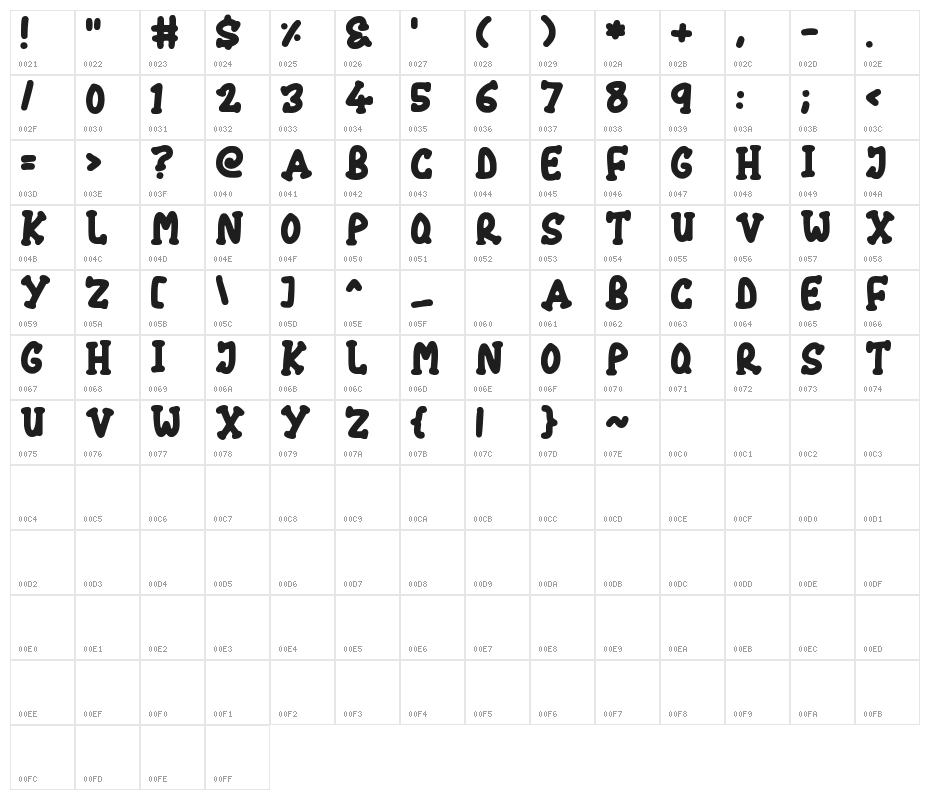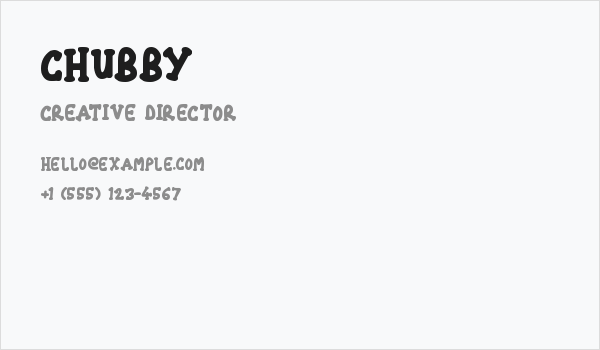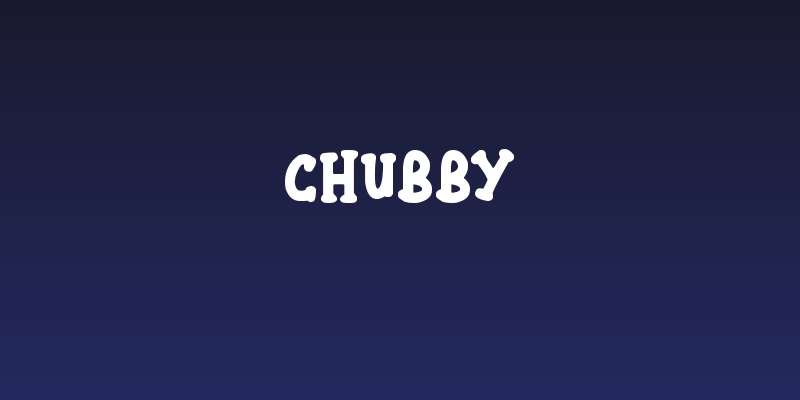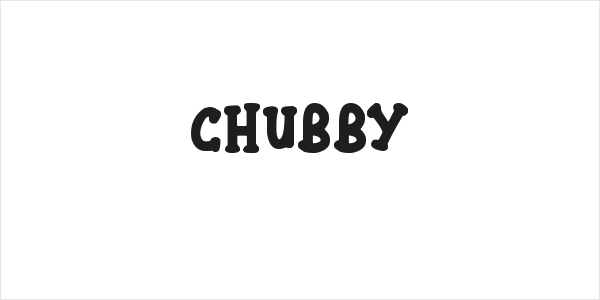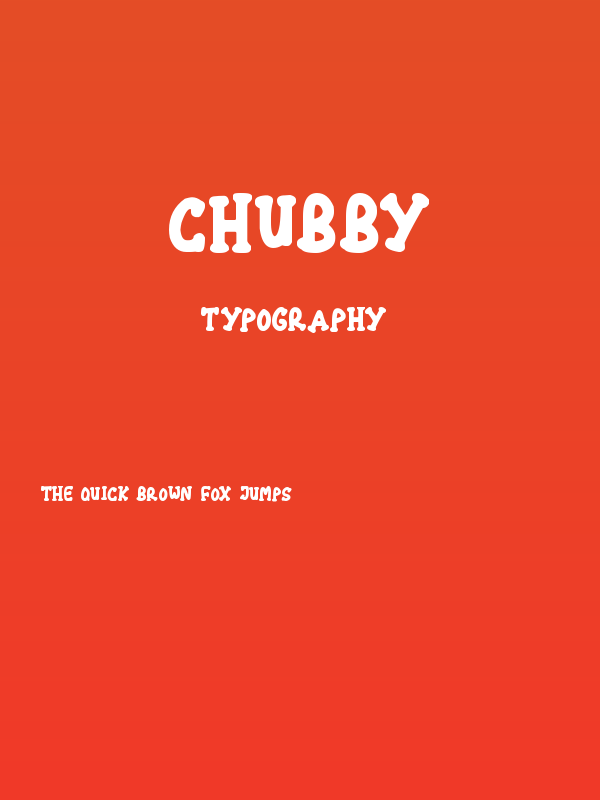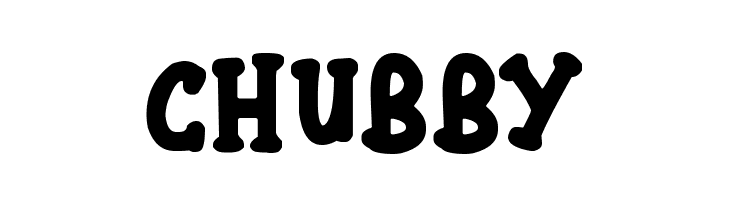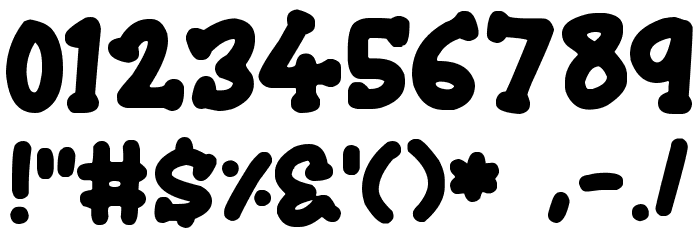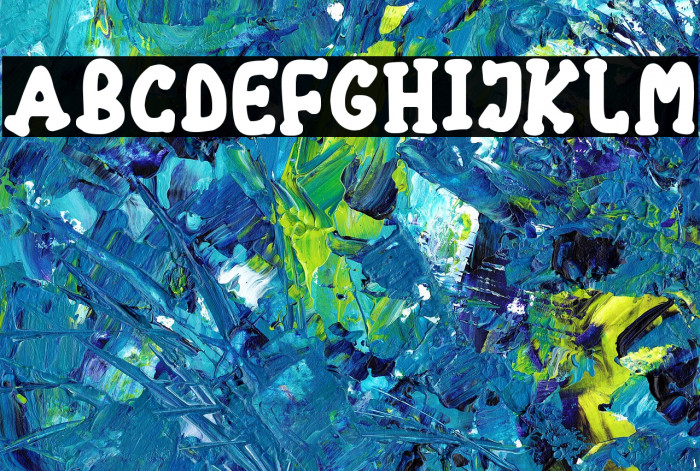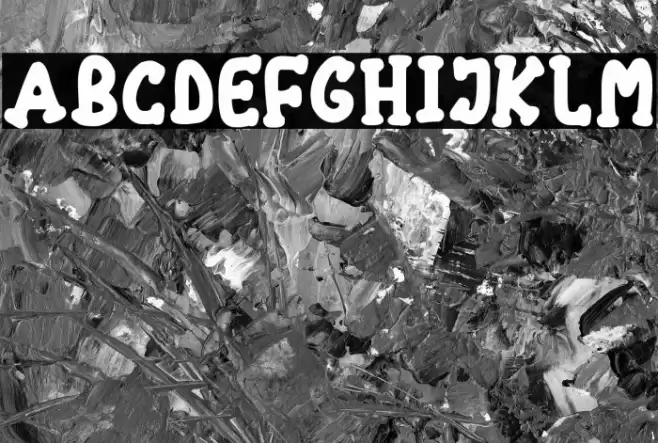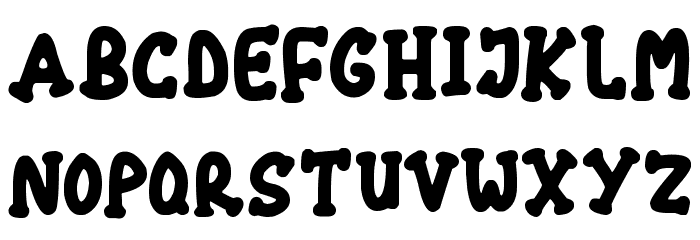
Chubby Font
✎ Cartoon
| Categorie | Cartoon |
| Stile generale | Playful, Fun, Whimsical |
| Progetti proposti | Ideal for children's books, playful branding, party invitations, and any project requiring a fun, eye-catching typeface. |